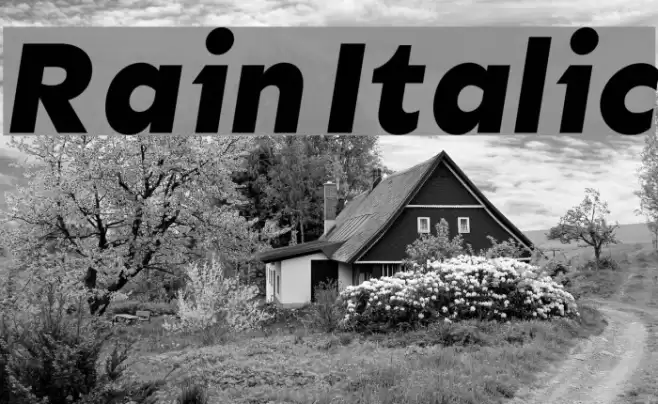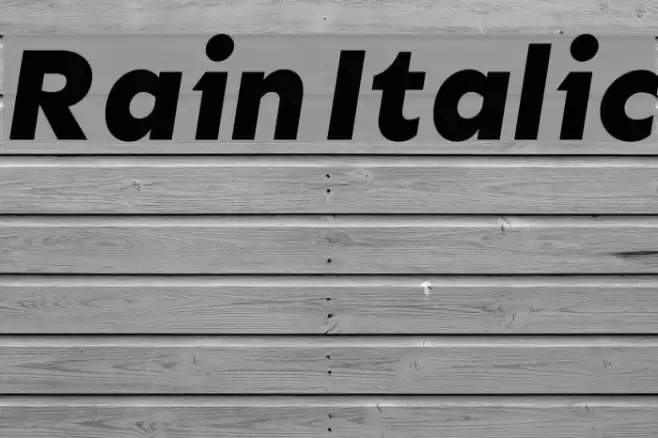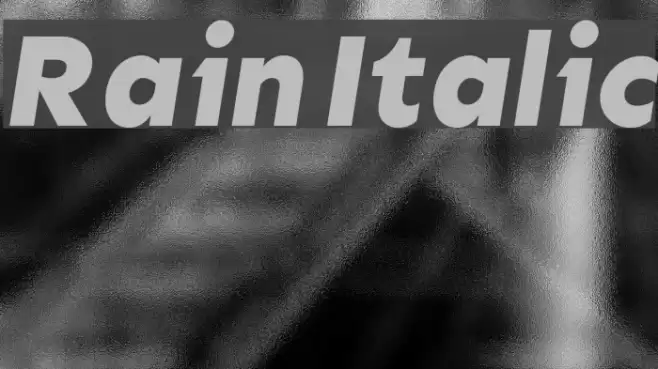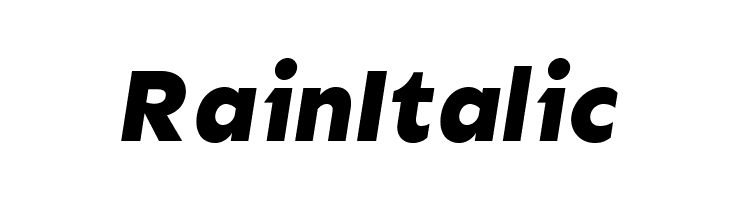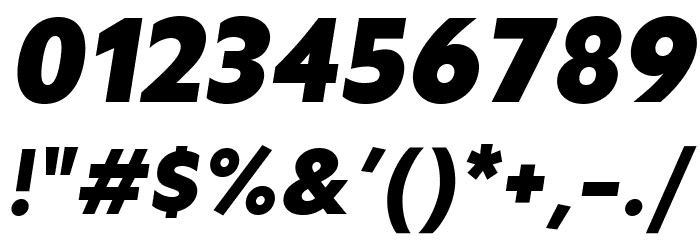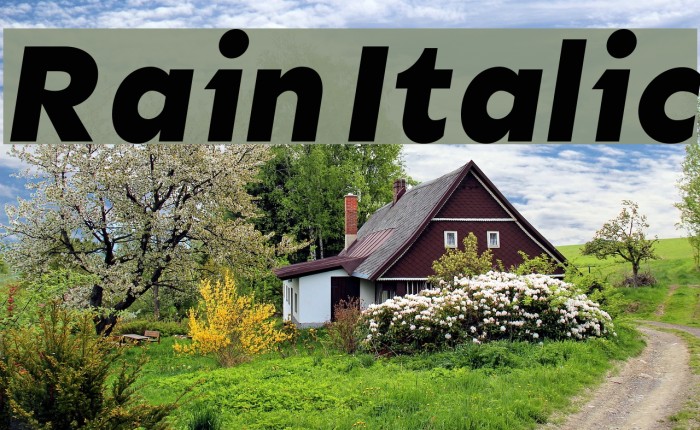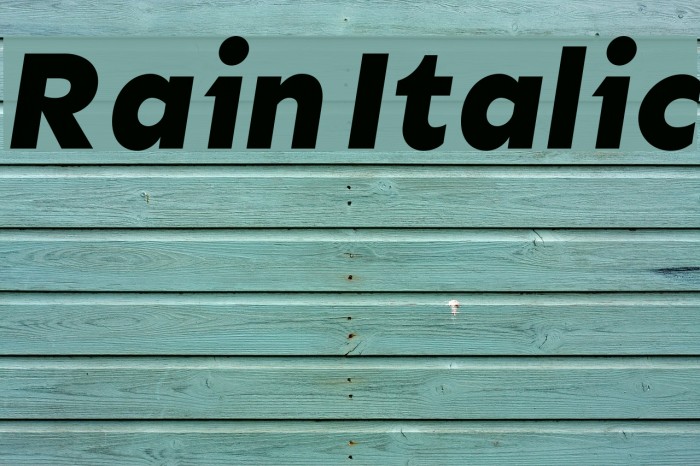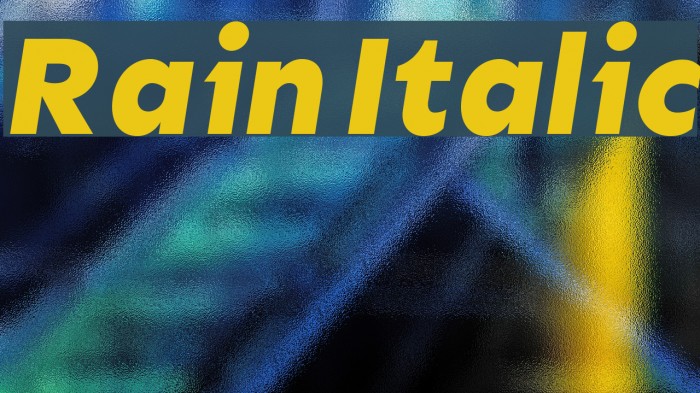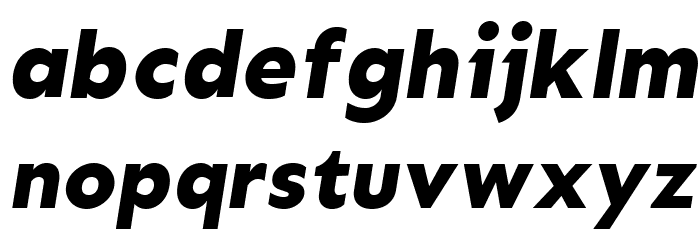
Rain Italic Font
Rain Italic Description
This font features a bold and dynamic italic style, characterized by its strong, slanted letterforms that convey a sense of movement and urgency. The strokes are thick and consistent, providing a solid and impactful appearance. The uppercase and lowercase letters maintain a uniform slant, enhancing the cohesive look of the typeface. The numerals and special characters are designed with the same boldness and slant, ensuring a harmonious integration across all text elements. The font's overall design is modern and assertive, making it suitable for attention-grabbing headlines and impactful statements.
A bold, italic font with strong, slanted letterforms for a dynamic and modern look from Uncategorized fonts.
- Proposed Projects: Ideal for branding, advertising, poster design, and any project requiring a bold, modern statement.
- Use Case: Headlines, Logos, Advertising